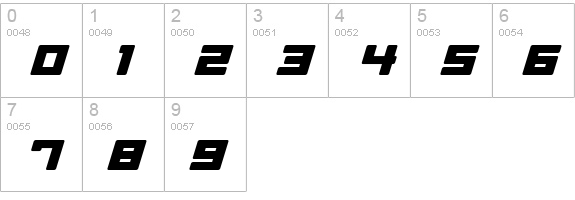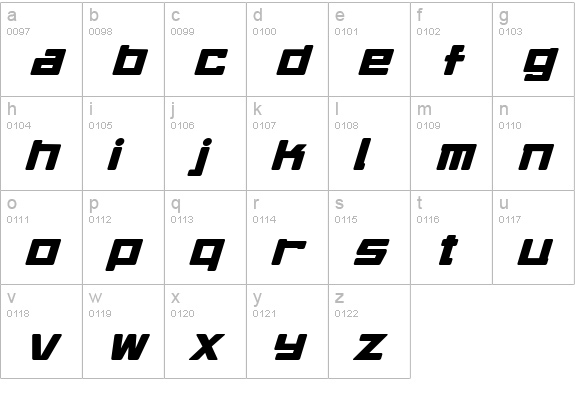
Daidoh Remix Round Iï¿¿alic Font Details
Introducing the Daidoh Remix Round Iï¿¿alic font, a captivating and versatile typeface that is sure to elevate your designs to new heights. This font merges the elegance of a classic italic style with a modern twist, creating a unique and eye-catching look. With its smooth curves and stylish letterforms, Daidoh Remix Round Iï¿¿alic is perfect for adding a touch of sophistication to any project. Whether you're designing a logo, crafting a brochure, or creating a stunning poster, this font will effortlessly enhance your work and leave a lasting impression. What makes Daidoh Remix Round Iï¿¿alic even more appealing is that it is freely available to download at FontsMarket.com. You can easily access this font and integrate it into your design arsenal, without any hassle or cost. This means that you can enjoy the benefits of a premium typeface without breaking the bank. Not only does Daidoh Remix Round Iï¿¿alic offer exceptional visual appeal, but it also boasts excellent legibility. Each character is meticulously crafted, ensuring clarity and readability, even at smaller sizes. This makes it suitable for a wide range of applications, from print to digital media. Experience the power and versatility of Daidoh Remix Round Iï¿¿alic and let your creativity soar. Download this font today from FontsMarket.com and unlock a world of design possibilities. With its seamless integration, exceptional quality, and the added bonus of being free, this font is a must-have for any designer looking to make a statement. Don't miss out on this incredible opportunity to elevate your designs to the next level.